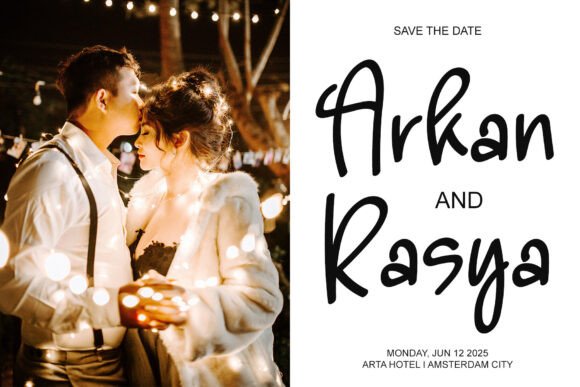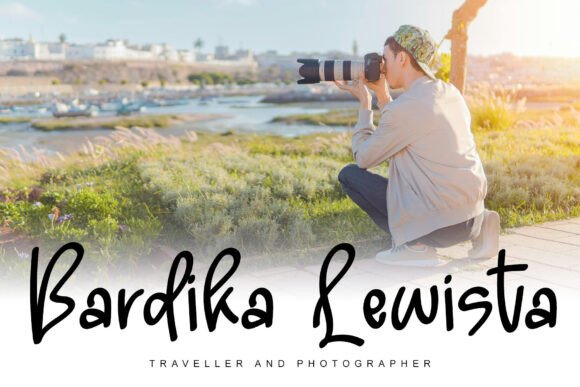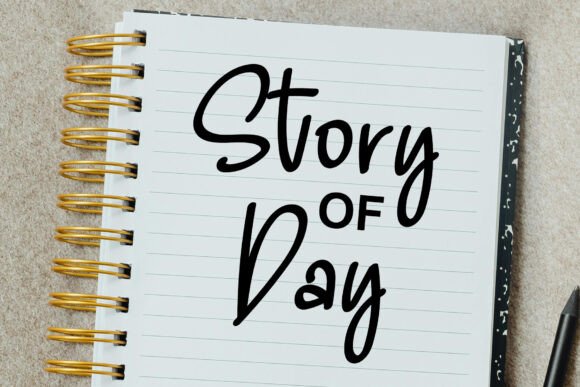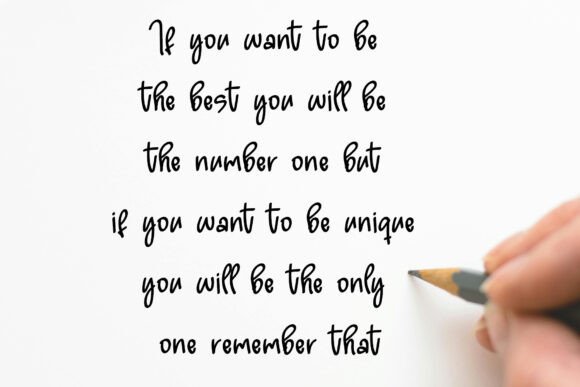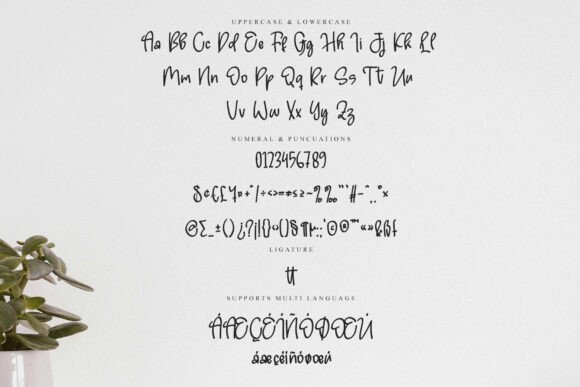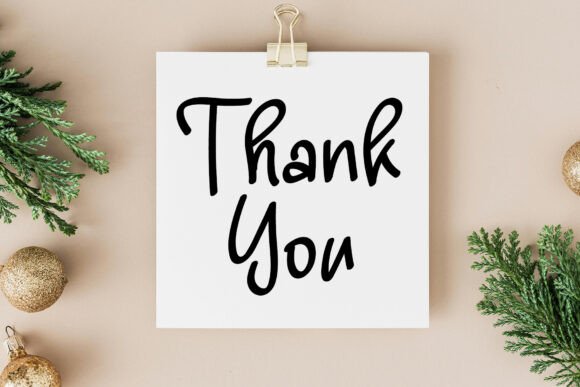
Beside Signature Font: Elevate Your Design with Unique Typography
When it comes to creating a lasting impression, typography plays a vital role in setting the tone and personality of a design. Among various font styles, Beside Signature fonts have gained popularity for their distinctive and eye-catching appearance. In this article, we’ll explore the world of Beside Signature fonts, their uses, and best practices for incorporating them into your designs.
What are Beside Signature Fonts?
Beside Signature fonts are a type of display font designed to grab attention and make a statement. They are characterized by their unique and often unconventional style, which sets them apart from traditional fonts. These fonts are commonly used in branding, advertising, and digital media, where a bold and memorable visual identity is crucial.
The Power of Beside Signature Fonts in Branding and Advertising
Beside Signature fonts can instantly elevate a brand’s visual identity and make it more recognizable. By using a distinctive font, businesses can create an emotional connection with their audience and establish a consistent tone across various marketing channels. In advertising, Beside Signature fonts can help capture attention, convey a message, and leave a lasting impression.
Effective Uses of Beside Signature Fonts
- Logos and Headings: Beside Signature fonts are perfect for creating unique logos, headings, and titles that require a bold and eye-catching appearance.
- Advertising and Marketing: These fonts can be used in advertisements, billboards, and marketing materials to grab attention and convey a message.
- Digital Media: Beside Signature fonts can enhance the visual appeal of digital media, such as social media graphics, website headers, and video titles.
Best Practices for Using Beside Signature Fonts
While Beside Signature fonts can be effective, they should be used strategically to maintain clarity and effectiveness. Here are some best practices to keep in mind:
- Use them sparingly: Reserve Beside Signature fonts for headings, titles, or key messages to avoid overwhelming the audience.
- Pair with complementary fonts: Combine Beside Signature fonts with simpler fonts to create contrast and ensure readability.
- Consider legibility: Ensure that the font is legible, even at smaller sizes, to maintain effectiveness.
- Test and iterate: Experiment with different fonts and test their performance across various mediums and devices.
For designers and crafters, working with Beside Signature fonts requires a deep understanding of typography and design principles. Here are some tips to help you get started:
- Experiment with font combinations: Try pairing Beside Signature fonts with other fonts to create unique and harmonious combinations.
- Pay attention to font weights and sizes: Balance font weights and sizes to create visual hierarchy and ensure readability.
- Use online font resources: Explore online font resources, such as font libraries and marketplaces, to discover new and inspiring Beside Signature fonts.
Beside Signature fonts offer a powerful way to elevate your design and make a lasting impression. By understanding their uses, best practices, and design principles, you can harness the potential of these unique fonts to create stunning visual identities. Whether you’re a designer, advertiser, or digital media professional, Beside Signature fonts are an essential tool to add to your creative arsenal.